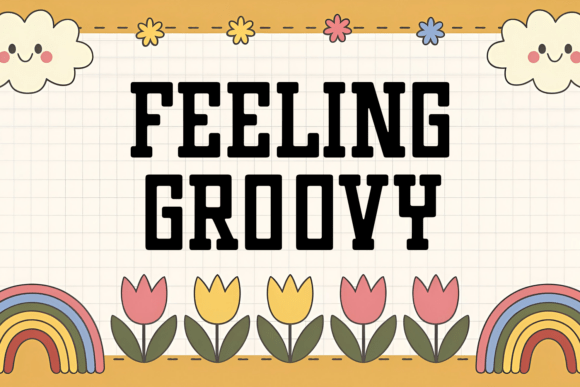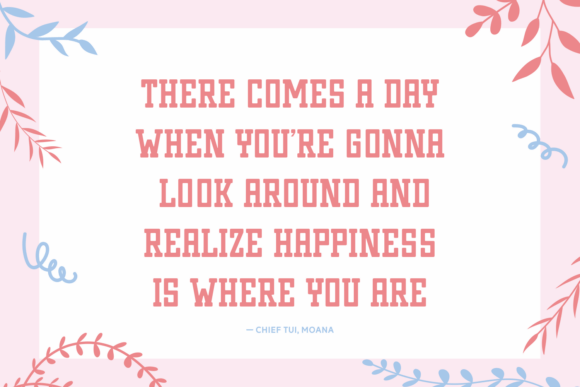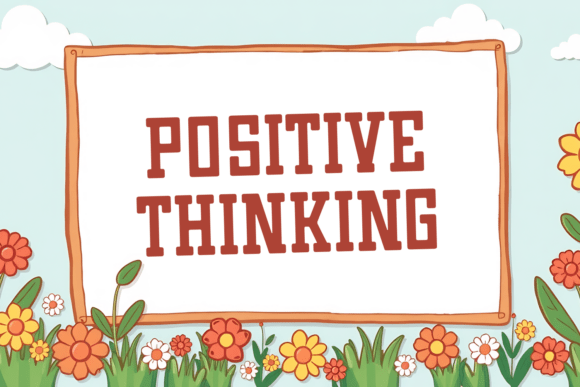
Maybe Next Time Font – Free Download
Introduction to Maybe Next Time Font
Introducing “Maybe Next Time”, a versatile typeface that marries old-world allure with contemporary versatility.
| 👤 Author | Anto (7NTypes) |
This slab serif font oozes vintage appeal and authentic charm, making it ideal for creating a nostalgic vibe With a slightly grunge texture, it invites an alternative yet attention-grabbing aesthetic that will surely captivate your audience.
Key Features of Maybe Next Time Font
Why Choose Maybe Next Time Font?